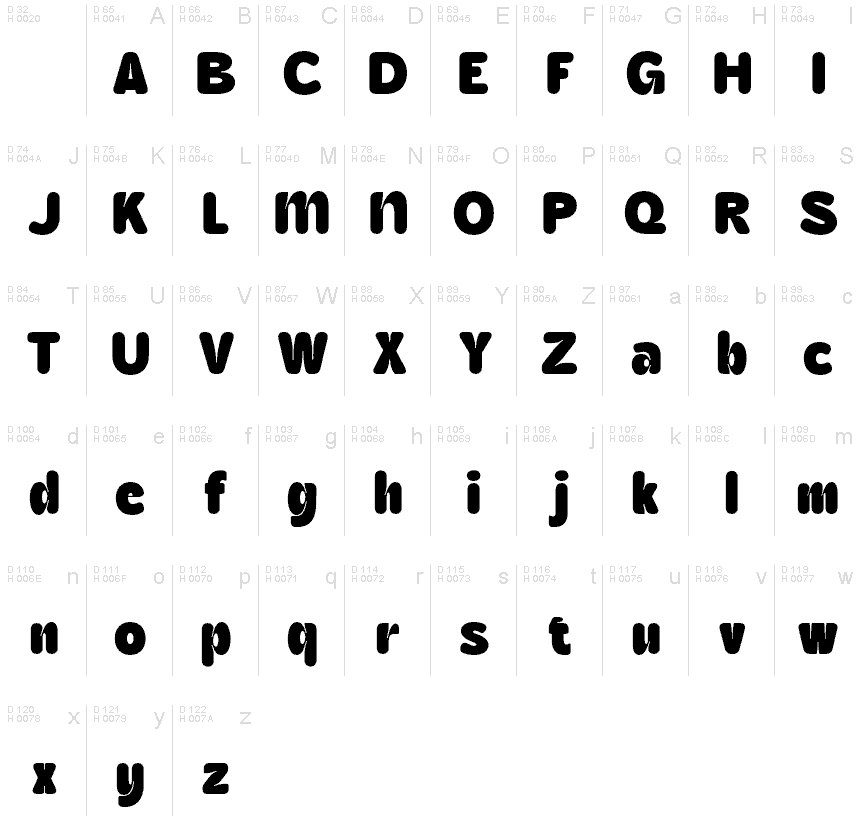
MarsenRounded-Regular Demo
Marsen Rounded font, created by Craft Supply Co., is a retro-inspired sans serif font with a bold and striking design. Each letter features geometric influences for versatility and contemporary adaptability along with a playful impression without additional decorations as it makes use only of rounded forms.